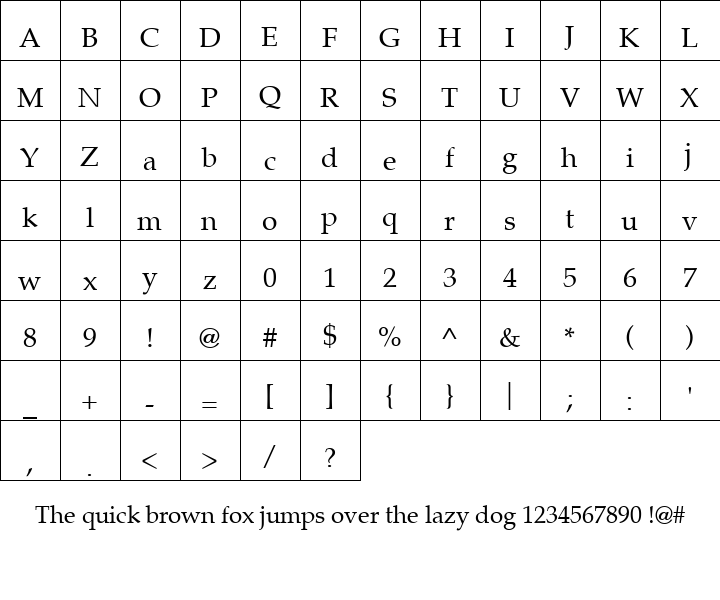
Palatino Font is listed among the top ten fonts in the typography world. This typeface is inspired by the ancient lettering style that was used in the past. It has contained the most elegant and stylish texture appearance. If you are looking for a font that you want to utilize in your projects as a body text, look no further download this font and make your designs perfect.
In 2005 it has been upgraded with new features and added new styles. The updated style of this font is known as Palatino Nova. This font style has won the award of best font style in the world in the years 2007 and 2008. You can easily pair it with hylia serif font Some of the styles of these fonts have sliced edge calligraphy characters that are perfect for designing purposes.
With this font, you can give creative and elegant vibes to your designs. It has been also one of the most used fonts in Adobe Photoshop. It is also listed in the font collection of Adobe and Google. It is also famous for its pairing quality. So, you can choose fonts and mix and match with this typeface and create cool and creative designs.
Designer of Palatino Font
This old lettering and elegant font style is designed by Hermann Zapf and he is considered a well-known designer for his typography works.
He released this font with the help of a typography foundry named Stempel foundry in the year 1948. He has focused on the ancient font concept and elegance while creating this typeface.
It has been comprised of its own family with different styles. Each of the styles is designed with numbers, special characters, italic styles, punctuations, multi-language support, lowercase letters, and uppercase letters. These styles are given below.
- Palatino Light
- Palatino Light Italic
- Palatino Roman
- Palatino Italic
- Palatino Medium
- Palatino Medium Italic
- Palatino Bold
- Palatino Bold Italic
- Palatino Black
- Palatino Black Italic
View of Palatino Font
| Name | Palatino Font |
| Style | Serif |
| Designer | Hermann Zapf |
| Foundry | Stempel foundry |
What type of font is Palatino font?
It is based on the old lettering font style and this font is a member of the Serif font family. This font is designed by Hermann Zapf.